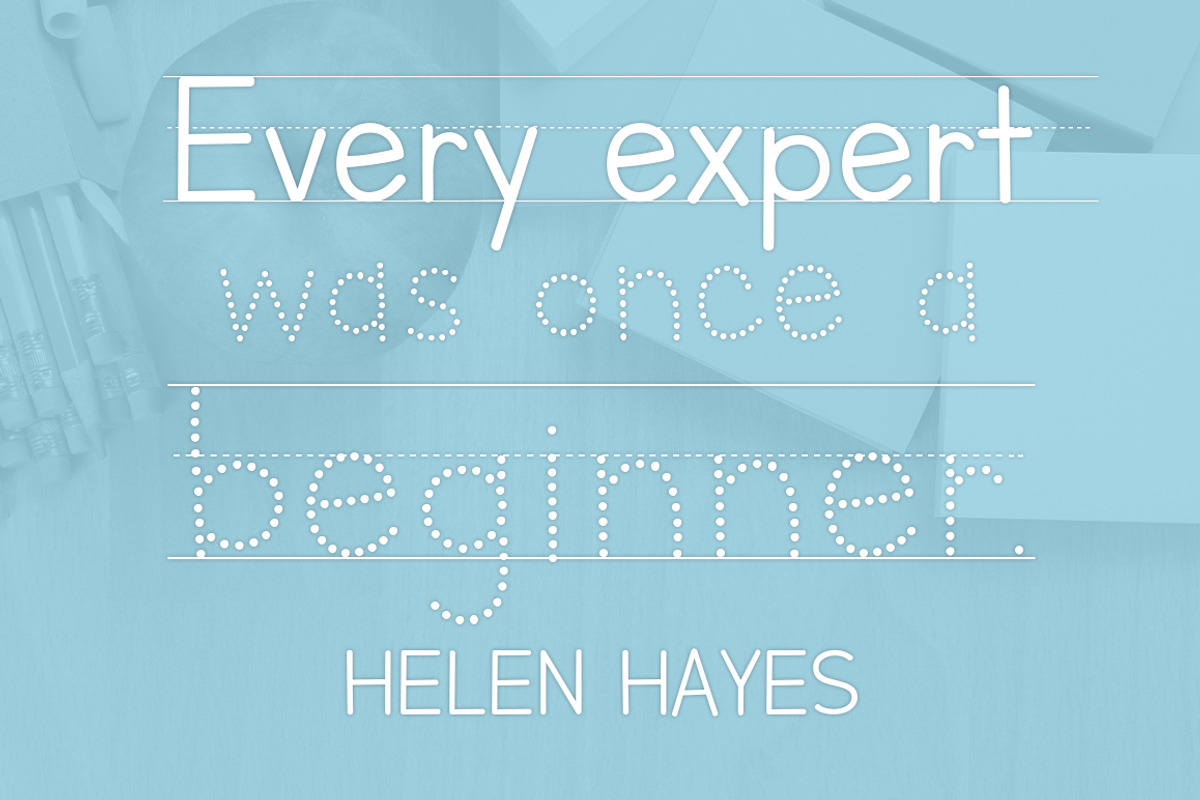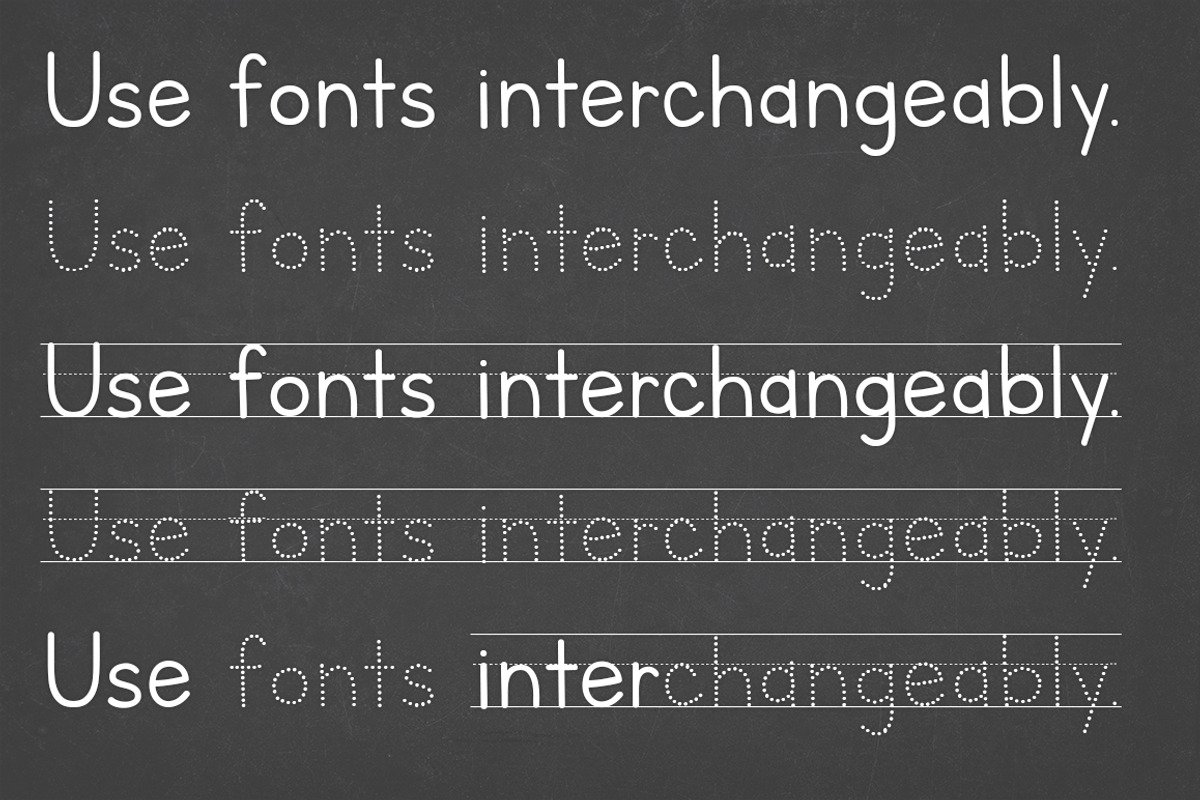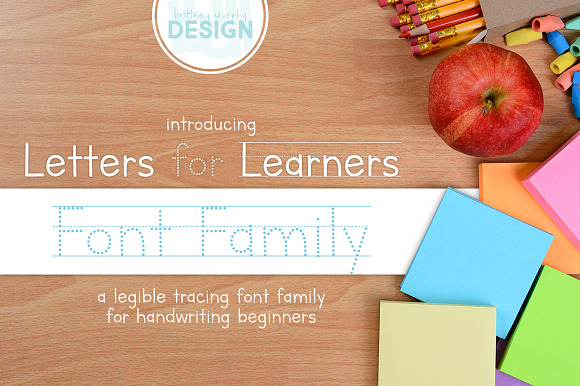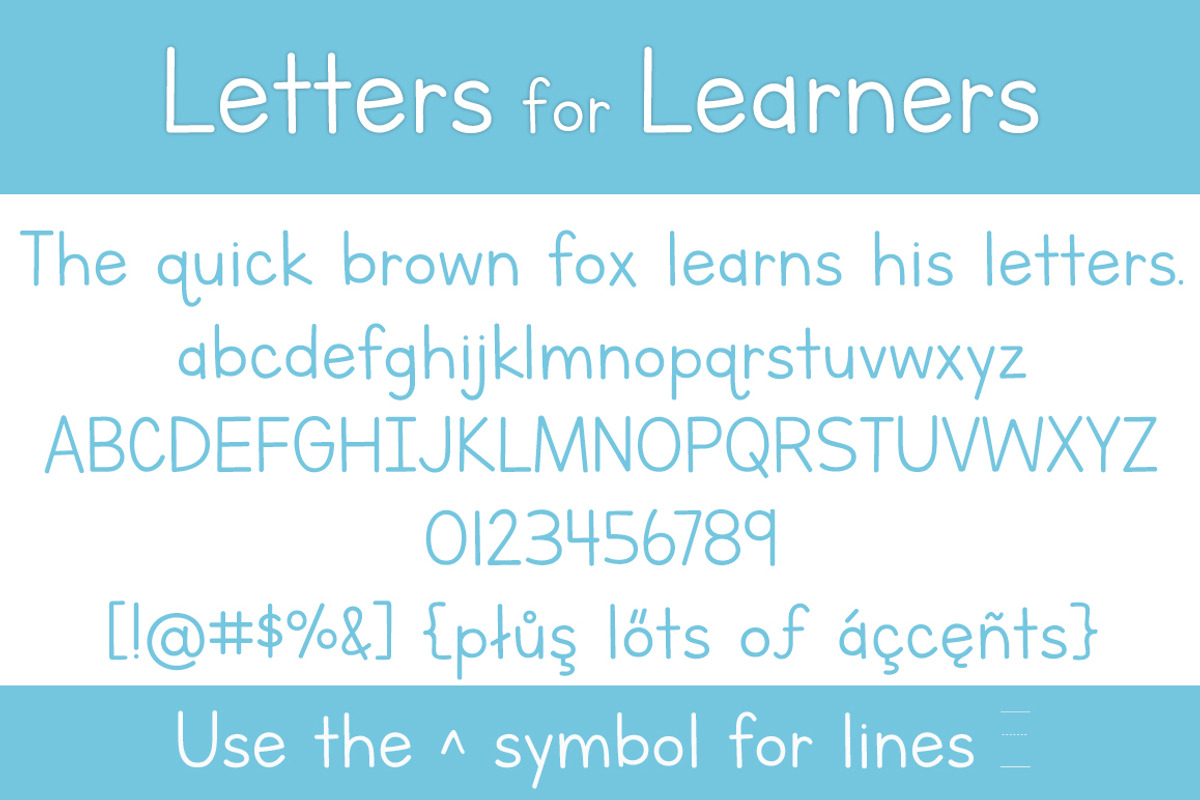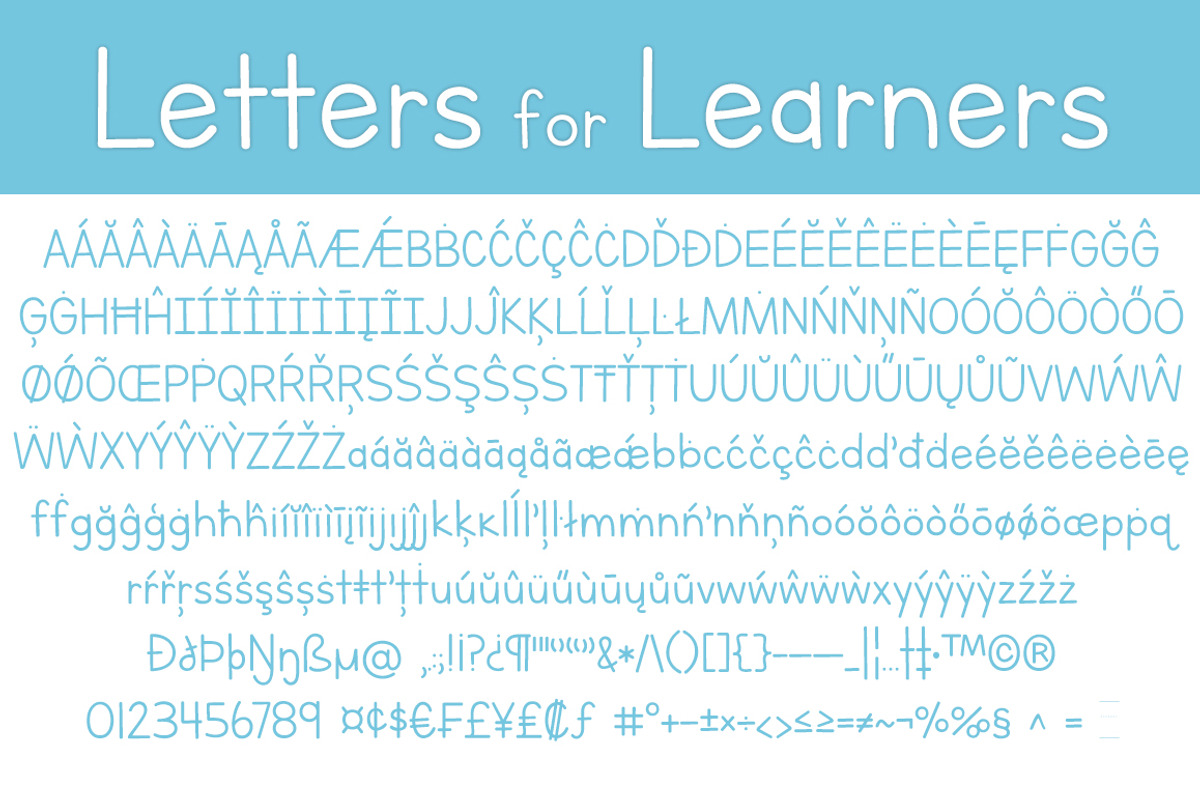
Letters for Learners Font Family
Letters for Learners Font Family is a friendly, legible type set designed by Brittney Murphy Design with young students in mind. The goal of this font was to create something that is clean and simple and helps anyone wanting to create handwriting worksheets for their children or students.
Designed in 2017, Letters for Learners Font Family has been used in hundreds of classrooms across the world and is one of the fonts we are most proud of, and are so glad to assist students everywhere in growing their handwriting skills.
- Letters for Learners Regular
- Letters for Learners Dots Regular
- Letters for Learners Lined Regular
- Letters for Learners Lined Dots Regular